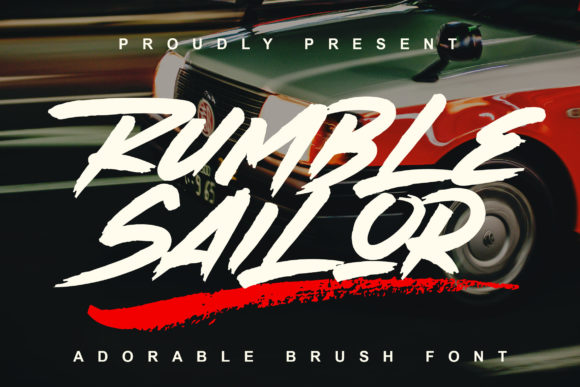
**Rumble Sailor: Unleash the Boldness of Urban Style**
Prepare to embark on a typographic adventure with Rumble Sailor, a daring display font that exudes the raw energy of street art. This font is not for the faint of heart; it's a powerful tool designed to make your designs roar.
Imagine your fashion logos commanding attention with the edgy strokes of Rumble Sailor. This font is the perfect weapon for streetwear brands, sportswear companies, and anyone looking to inject a dose of urban rebellion into their designs. Each letter is a graffiti-inspired masterpiece, ready to transform your creations into eye-catching works of art.
But Rumble Sailor's boldness extends far beyond fashion. Its versatility knows no bounds. Use it to create advertisements that demand attention or design clothing that speaks volumes. Every stroke of this font carries the power to captivate and inspire.
**Key Features:**
* Bold and impactful display font
* Perfect for fashion logos, sportswear, and advertisements
* Suitable for clothing designs and more
* Delivers an urban, street art vibe
* Versatile and easy to use
**Benefits:**
* Create designs that exude confidence and style
* Stand out from the crowd with unique and eye-catching typography
* Convey the raw energy and creativity of street art
* Easily adaptable to a wide range of design projects